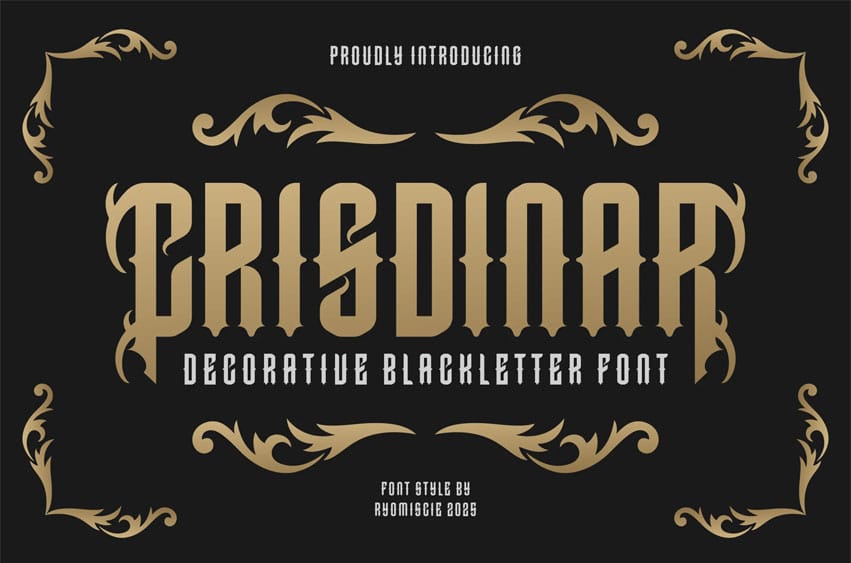
Crisdinar Font Modern Font is a bold and authentic display font. The font is suitable for any branding project like logo, t-shirt printing, esport, and many more. outstanding in a wide range of contexts.